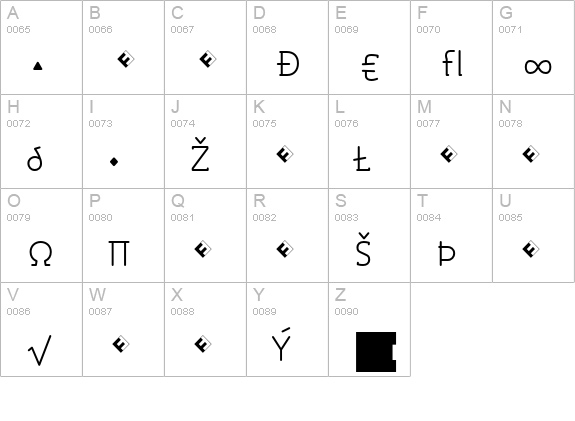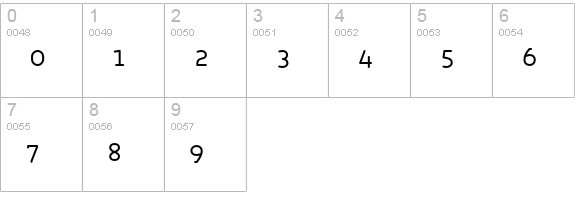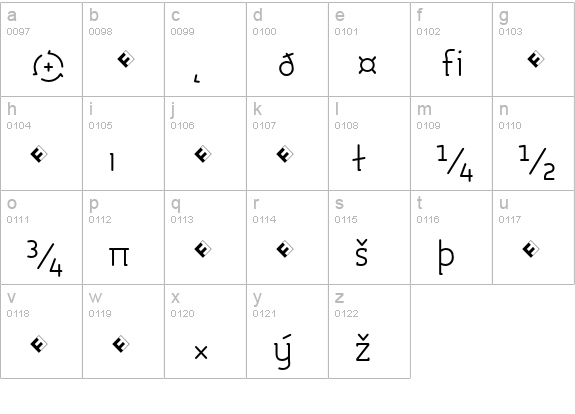
Roice-LightExpert font is a sleek and modern typeface that exudes sophistication and elegance. With its clean lines and subtle curves, this font is perfect for creating a professional and polished look in any design project. The Roice-LightExpert font is versatile and can be used for a wide range of applications, from branding and advertising to web design and print materials. One of the best things about the Roice-LightExpert font is that it is completely free to download. That's right, you can get your hands on this beautiful font at no cost! Simply head over to FontsMarket.com and start using this amazing font in your projects today. Don't miss out on the opportunity to add a touch of class to your designs with the Roice-LightExpert font.